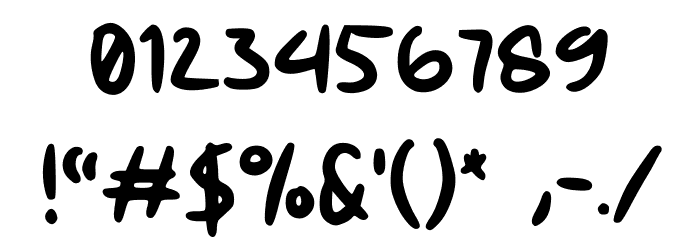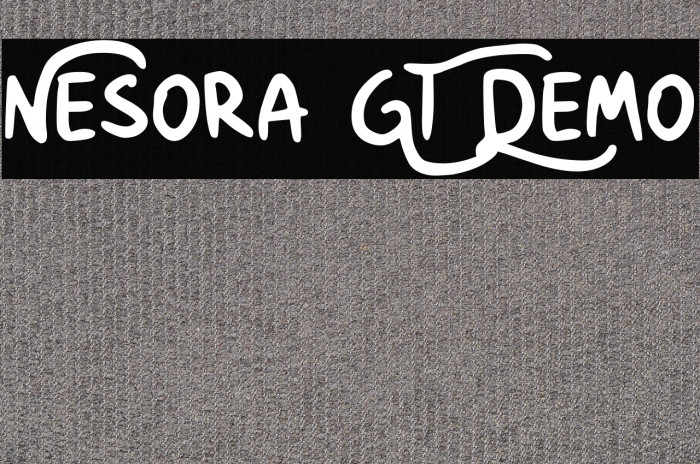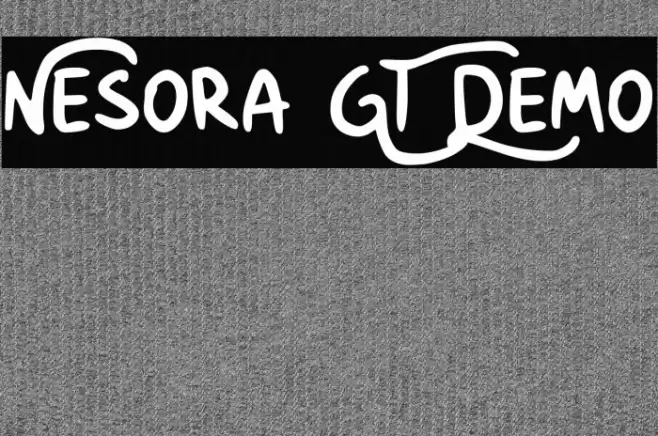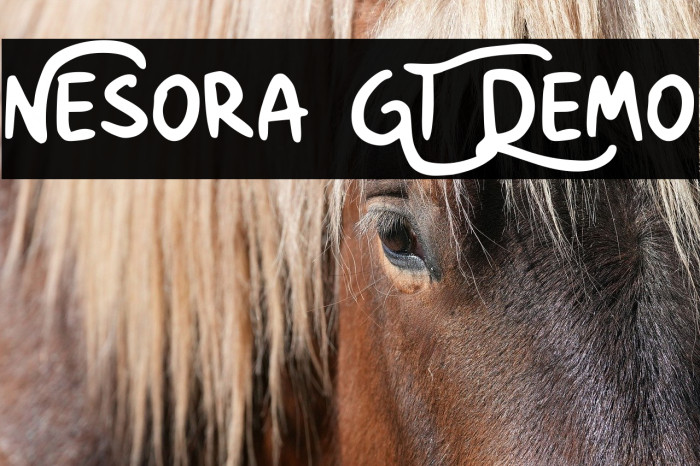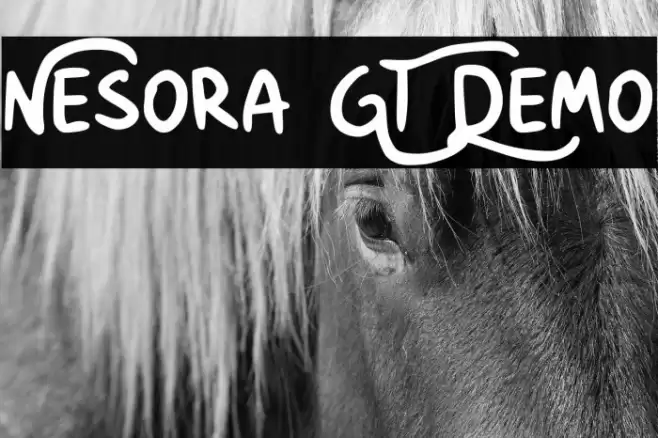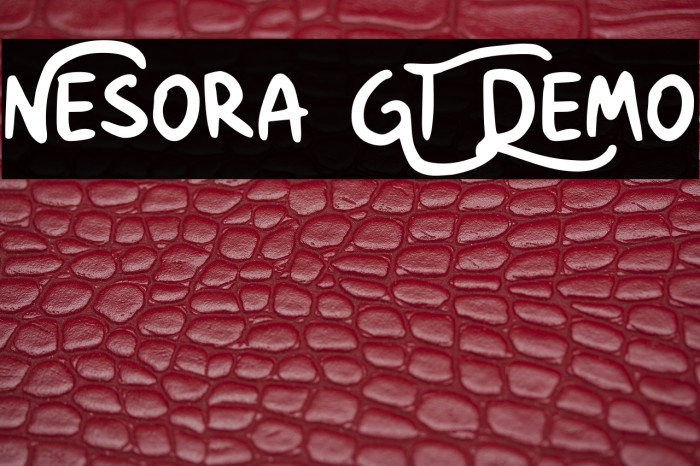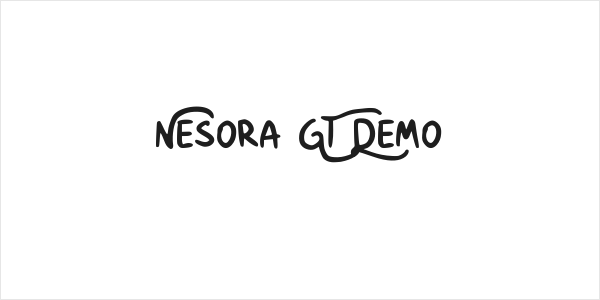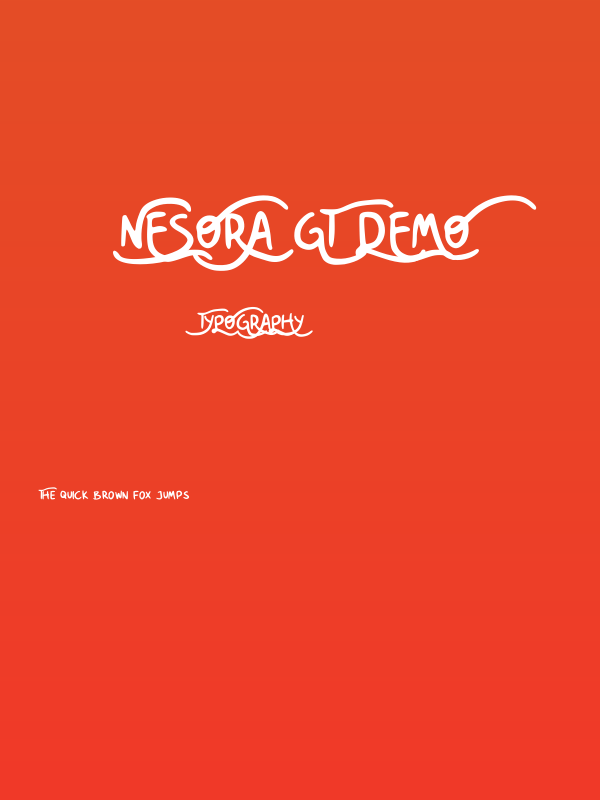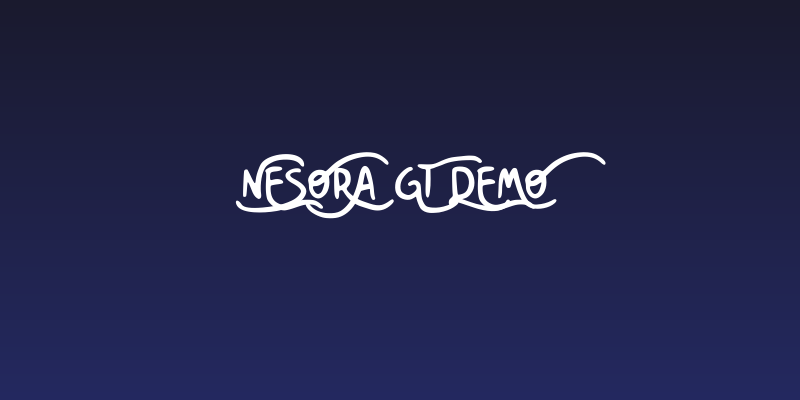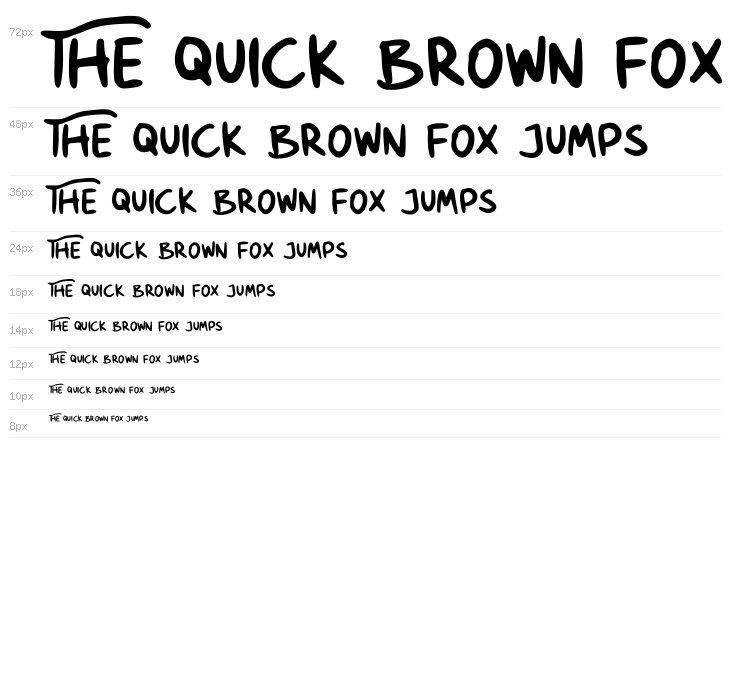
Nesora GT Demo Font
Nesora GT Demo Description
This font features a bold, handwritten style with a playful and energetic appearance. The letters are slightly irregular, adding a personal and informal touch. The uppercase and lowercase letters maintain a consistent style, with rounded edges and a smooth flow. The numbers and special characters are designed to match the overall aesthetic, ensuring a cohesive look across all elements. This font is perfect for projects that require a friendly and approachable vibe, such as children's books, casual branding, or creative posters.
| Proposed Projects | Ideal for children's books, casual branding, creative posters, and informal invitations. |